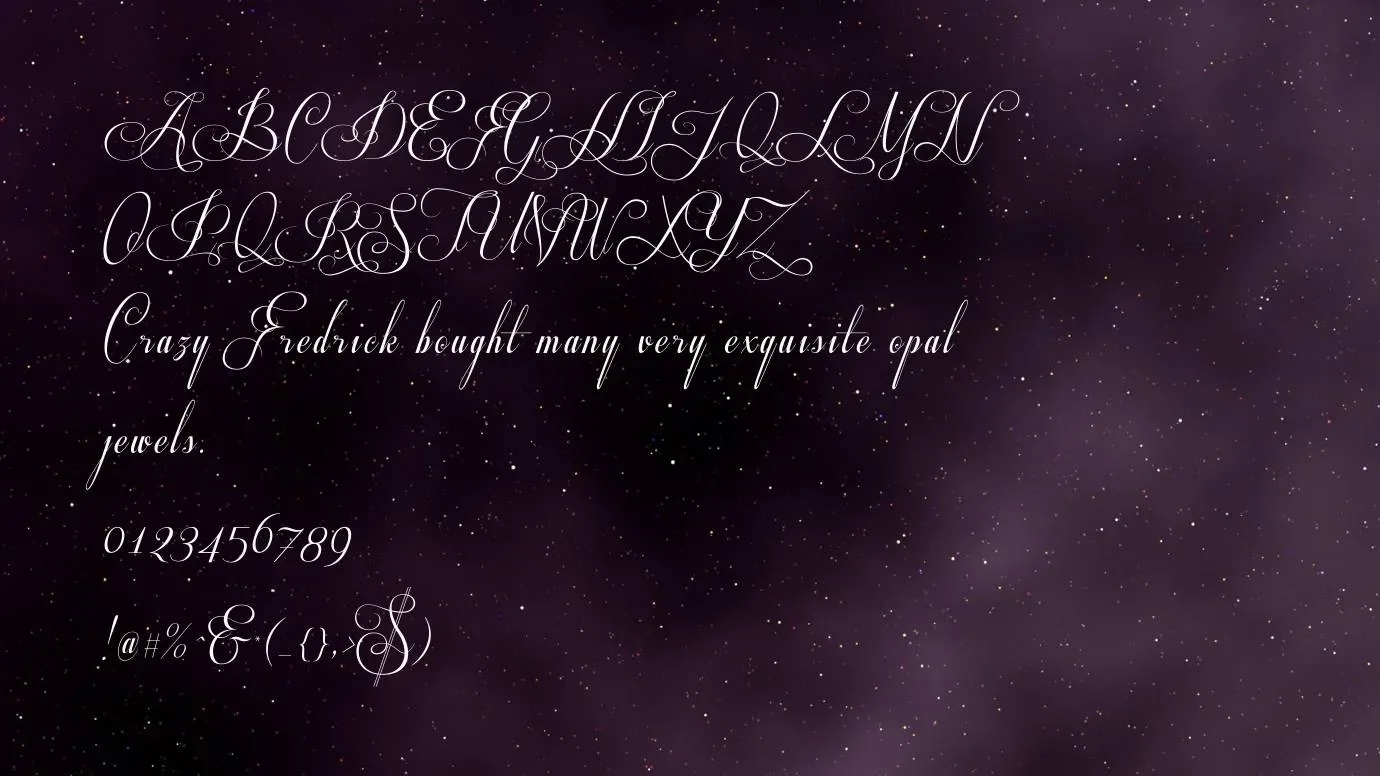
In this post, we will present you with the coolest script typeface family that is known as Respective font and it comes in 4 super styles including Regular Style, Slanted Regular Style, Swashes Regular Style, and Swashes Slanted Regular Style. This advanced typeface was designed by Mans Greback and he released this typeface from Mans Greback foundry in 2011. The font family comprises a complete set of 372 characters containing all case letters, basic punctuation marks, numbers, Currency symbols, updated icons, and many special characters.
Further, every weight of the design supports different language characters including Latin, French and Cyrillic characters. It is available in Truetype features along with ligatures, swashes, and fantastic letterforms which make it suitable for big headlines. It also presents great legibility on display and print media. December Calligraphy Font is the most similar font to this typeface.
Reason to Use Respective Font
This amazing script typeface can be used in your plenty designs and text design as well. It has playful letterforms which can be used for your huge texts and even better for small texture content. You can be professionally drawn your signatures using this typeface. You can create such beautiful quotes, general reports, invoices, store/shop names with the aid of this typeface.
Respective Font View
Respective Font Family (Includes Total 4 Typeface)
- Respective Regular Style
- Respective Slanted Regular Style
- Respective Swashes Regular Style
- Respective Swashes Slanted Regular Style
What font is Respective?
This is a very romantic script typeface that is suitable for your lovely designs. It has 4 styles including Regular Style, Slanted Regular Style, Swashes Slanted Regular Style, and many more.